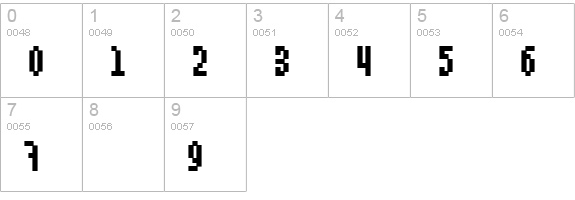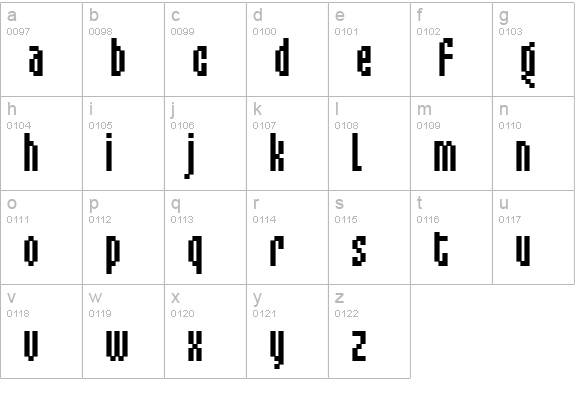
Mixelate III Font Details
Mixelate III is a unique and eye-catching font that combines pixelated elements with a modern twist. Its bold and edgy design makes it perfect for headlines, posters, and branding projects that require a touch of creativity and originality. This font is versatile and can be used for a wide range of design projects, from digital artwork to printed materials. With its clean lines and geometric shapes, Mixelate III exudes a sense of contemporary style and sophistication. The best part? Mixelate III is completely free to download at FontsMarket.com. Whether you're a professional designer looking to add a fresh font to your collection or a hobbyist exploring new creative possibilities, this font is a must-have addition to your toolkit. Don't miss out on the opportunity to enhance your projects with the striking visual impact of Mixelate III.